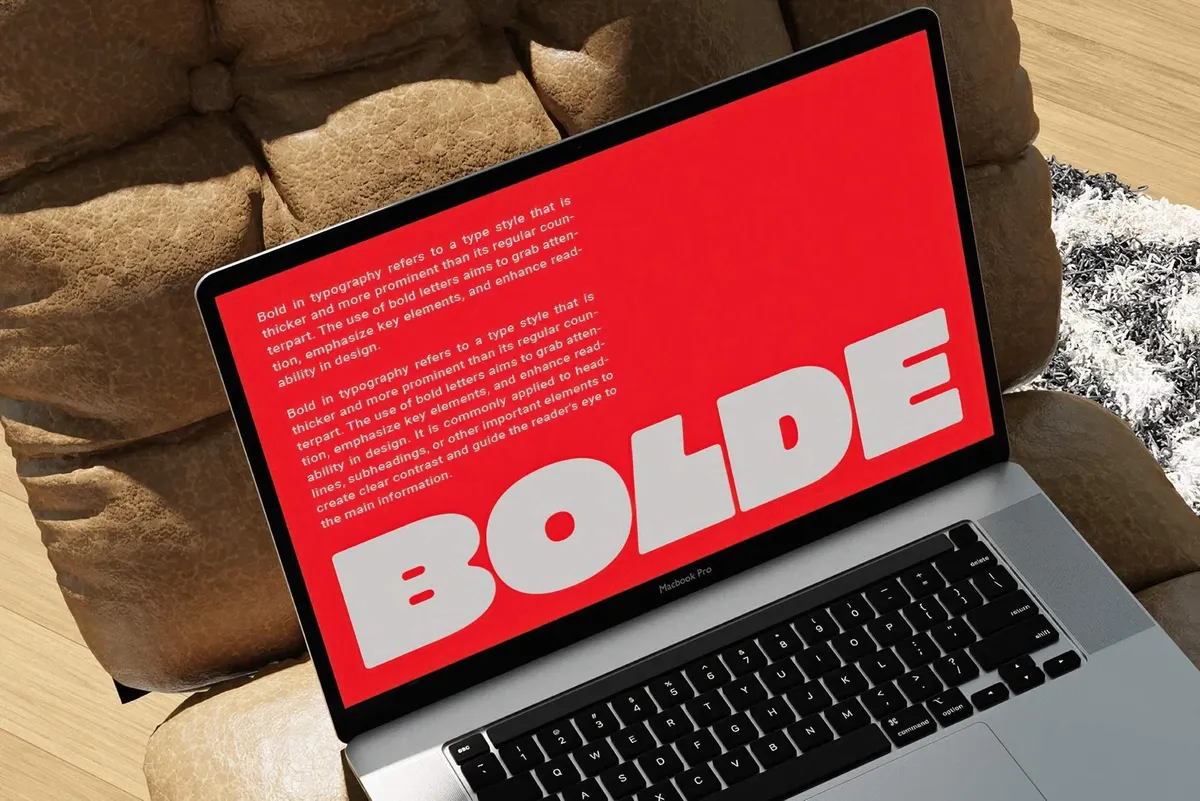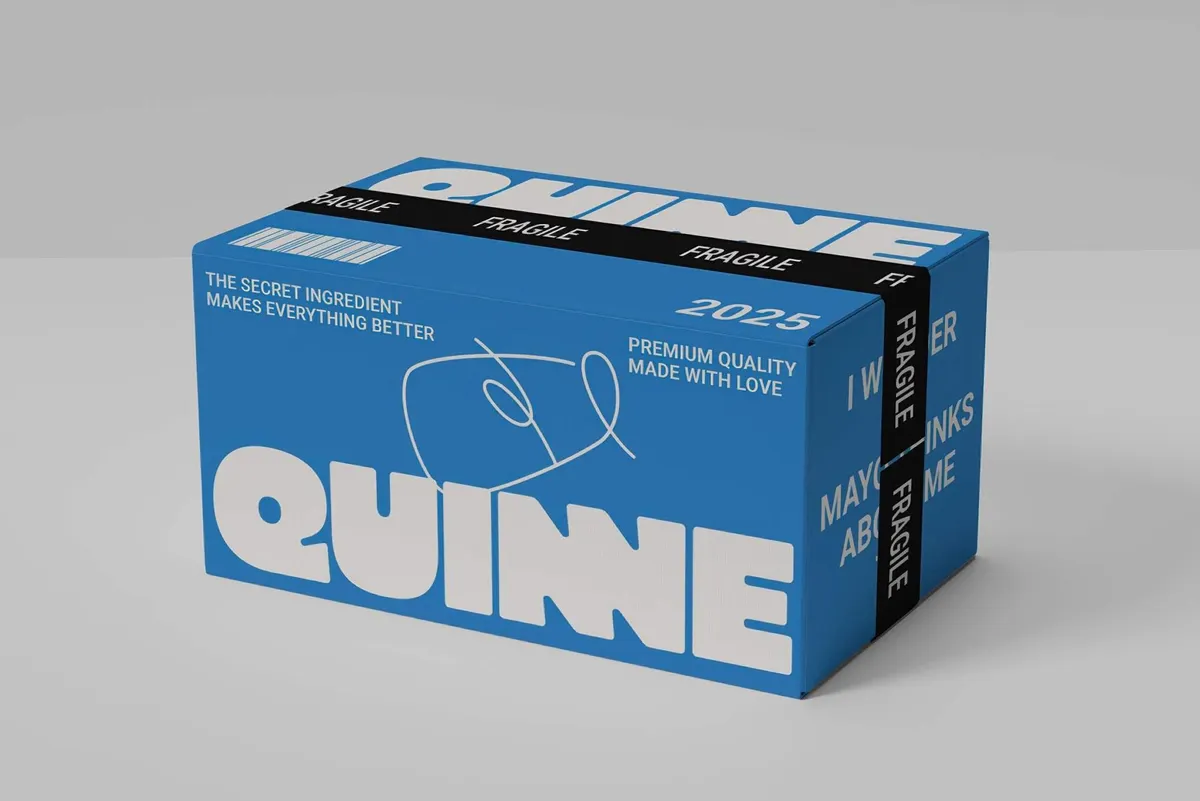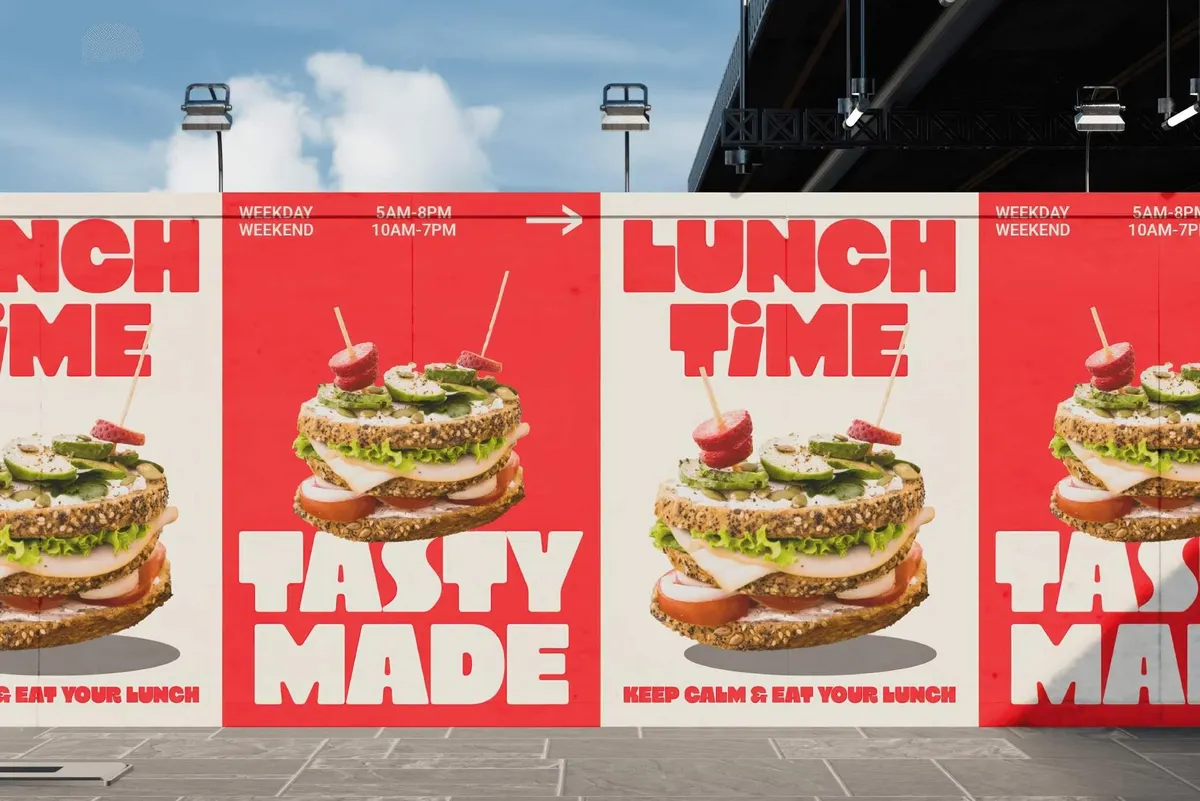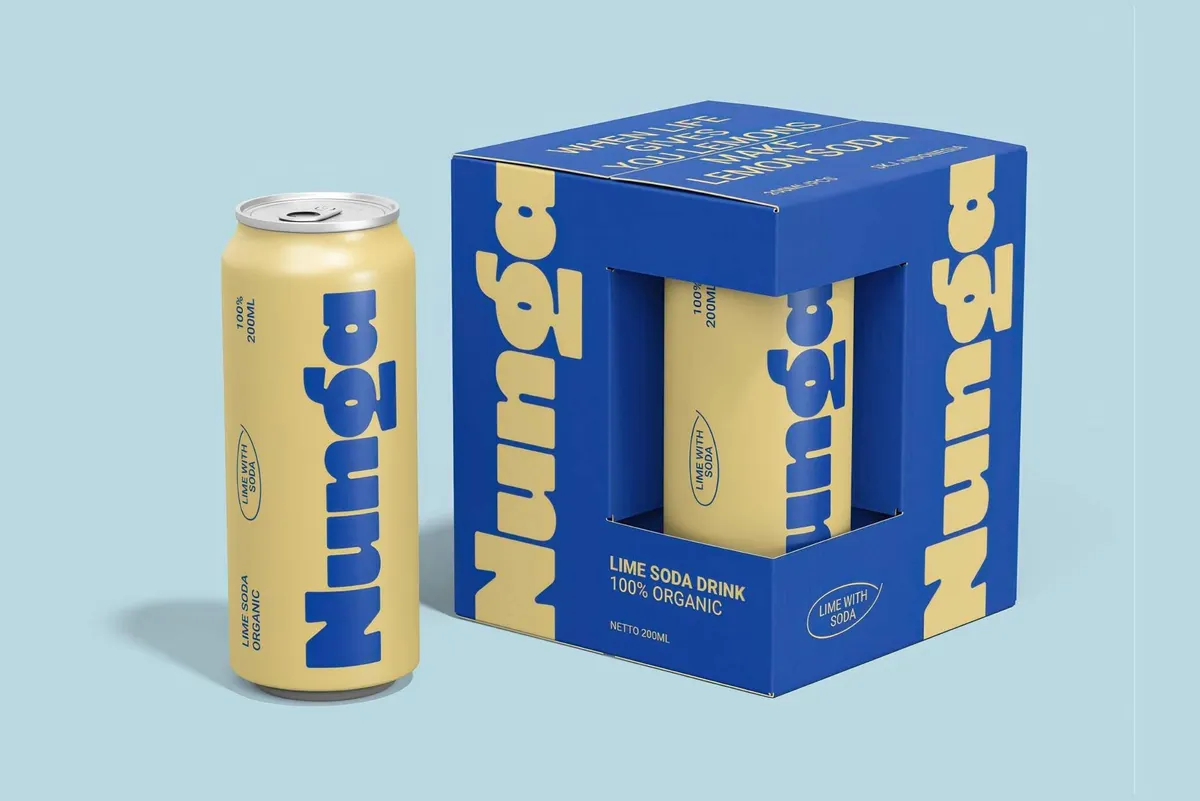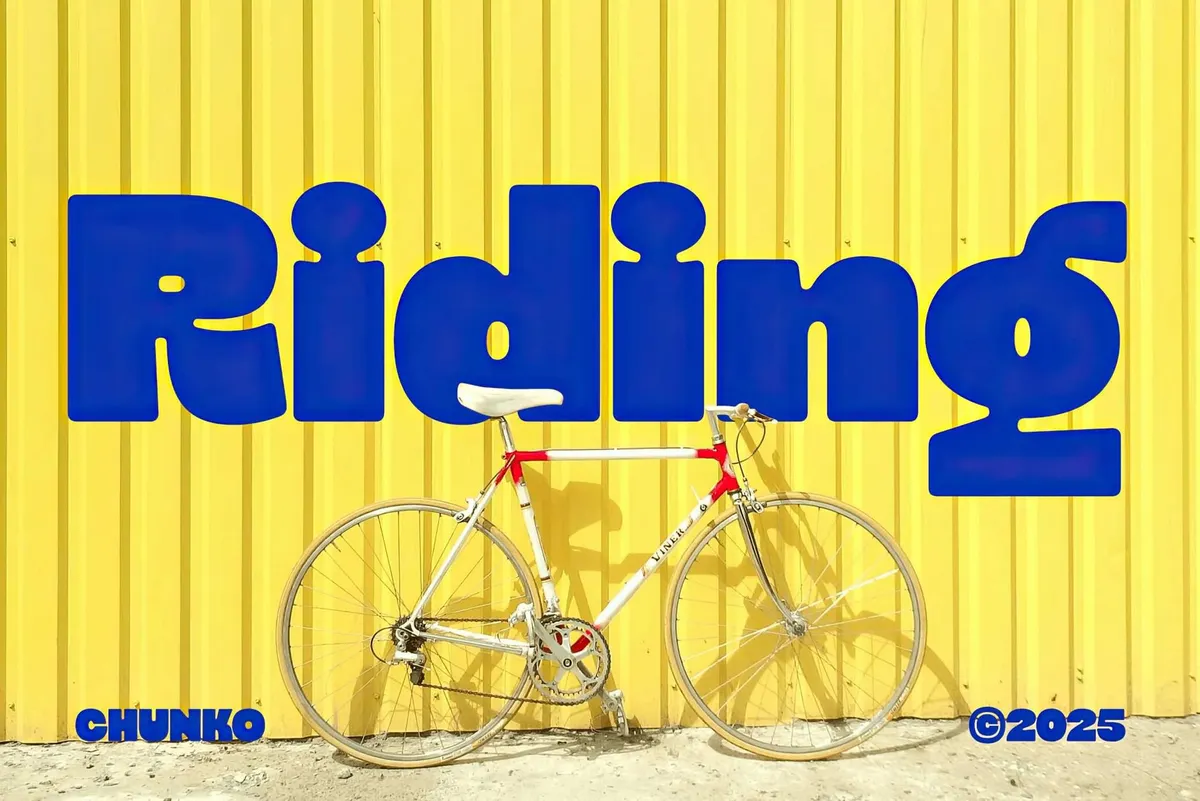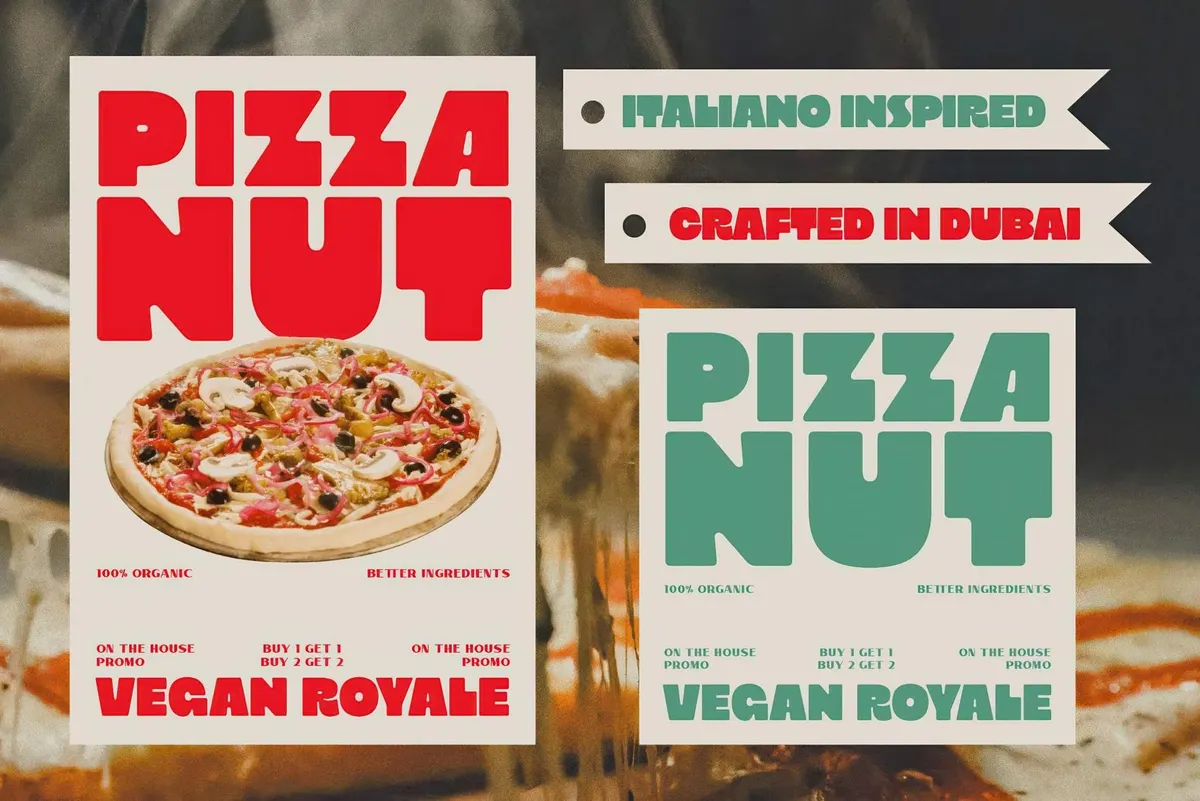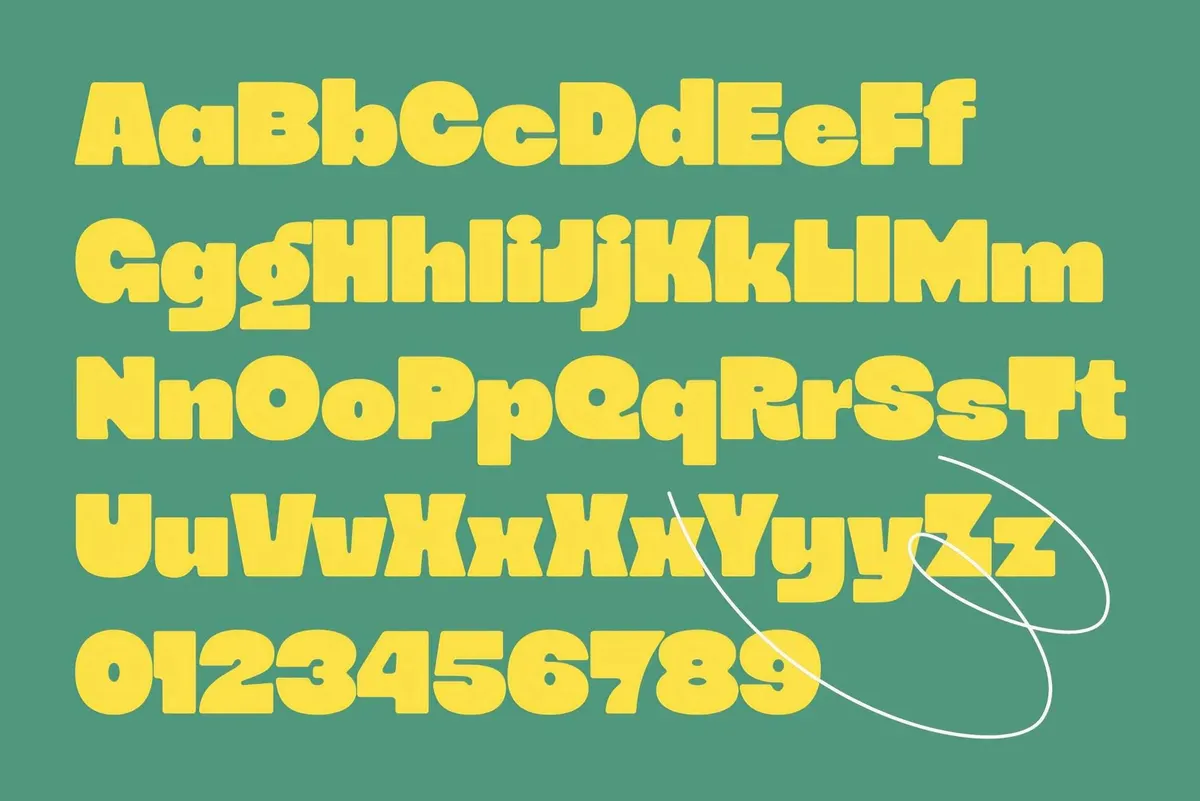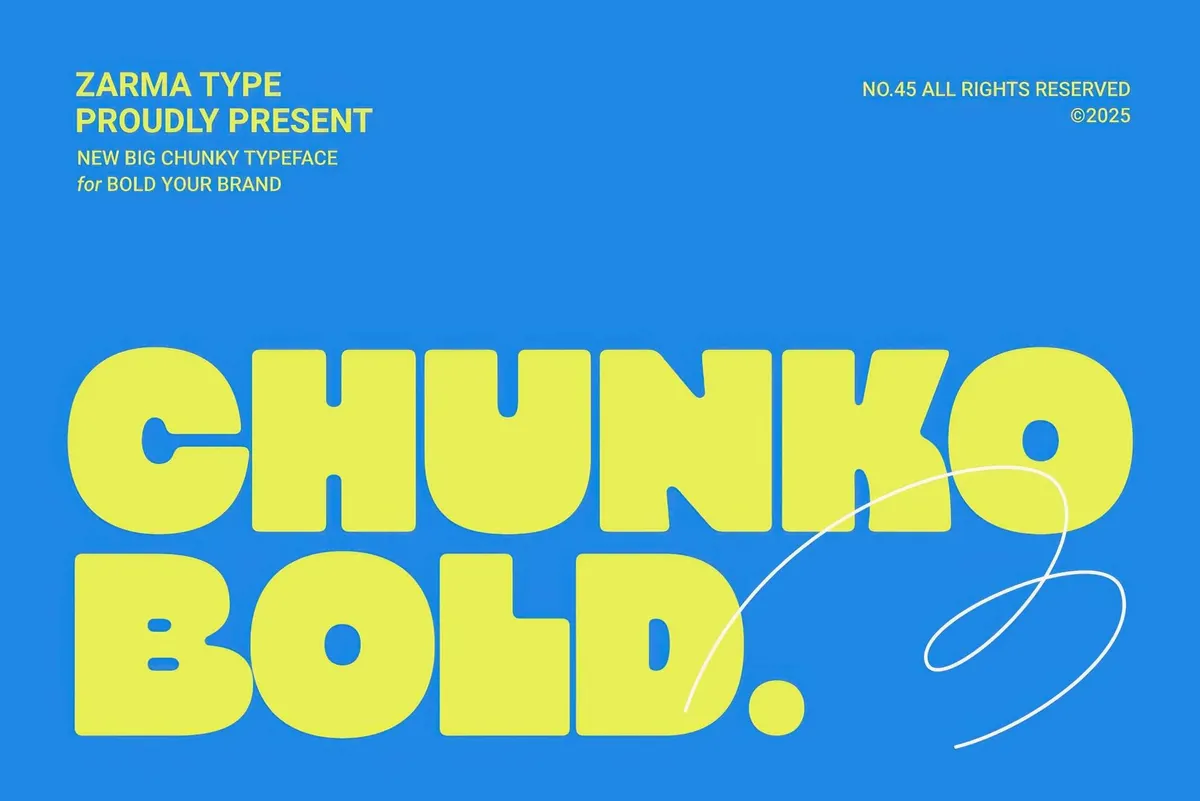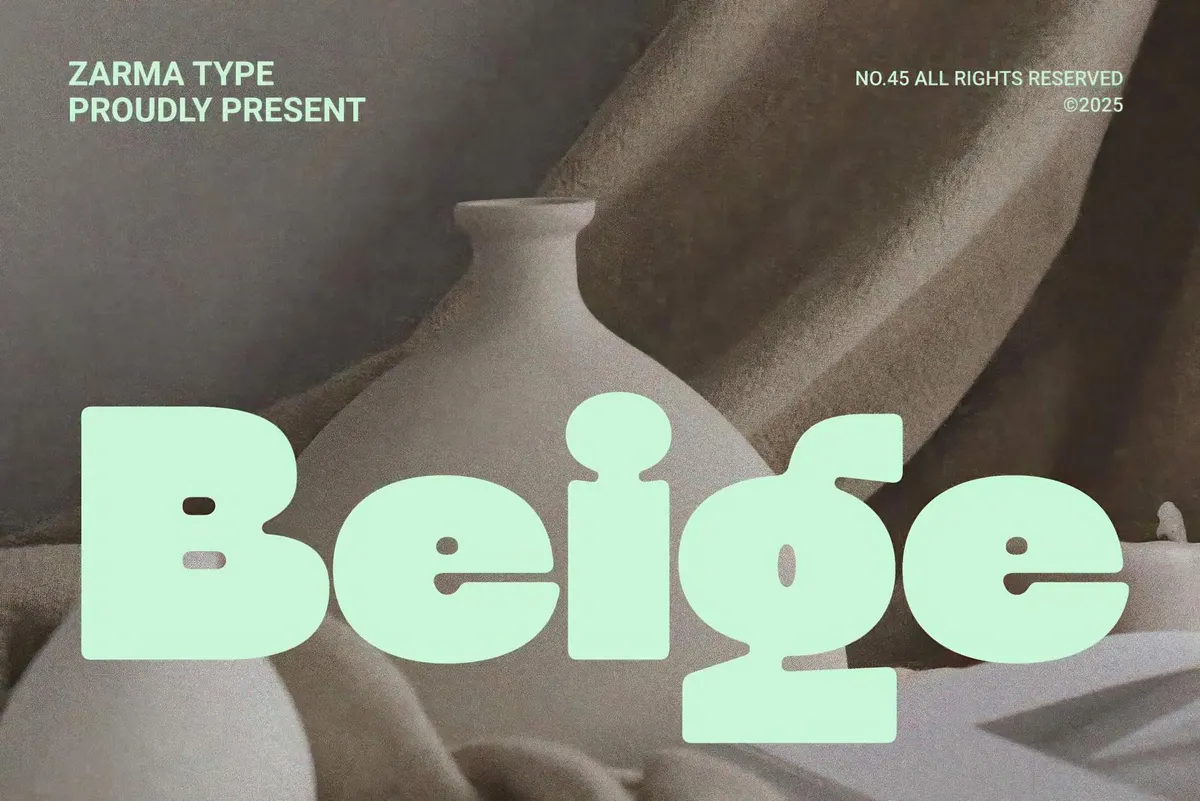
Chunko Bold Sans Serif
Chunko
Some fonts whisper. Chunko Bold shouts through a megaphone wrapped in neon tape. It feels like Sesame Street but built in Brutalist architecture. With letterforms chunky enough to double as flotation devices, it’s made for designers who want their words to pop like headlines, whether selling hot sauce, starting a fashion label, or announcing an alien invasion.
Chunko Bold is the font equivalent of a designer who only wears black — but in Helvetica yellow. With multilingual support, stylistic alternates, and ligatures smoother than a Wes Anderson dolly shot, this is the kind of typeface you throw into posters, menus, or packaging whenever you want maximum visual thump.